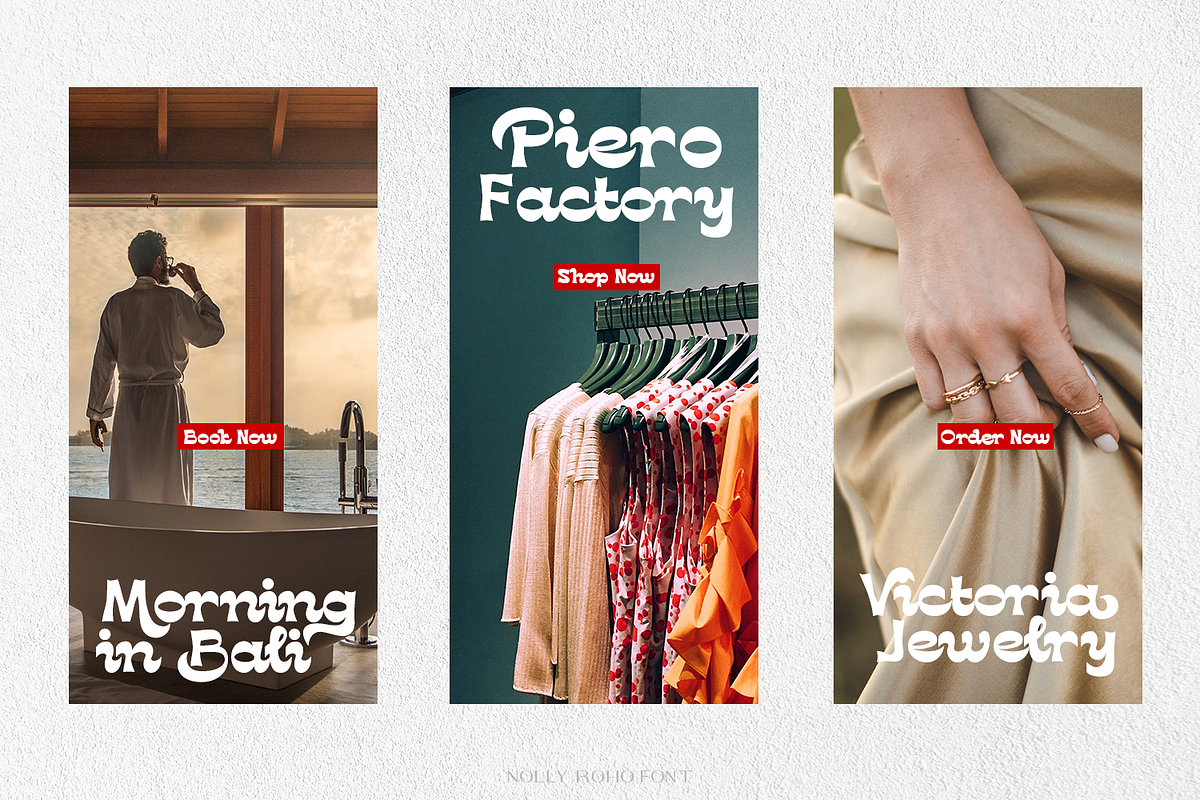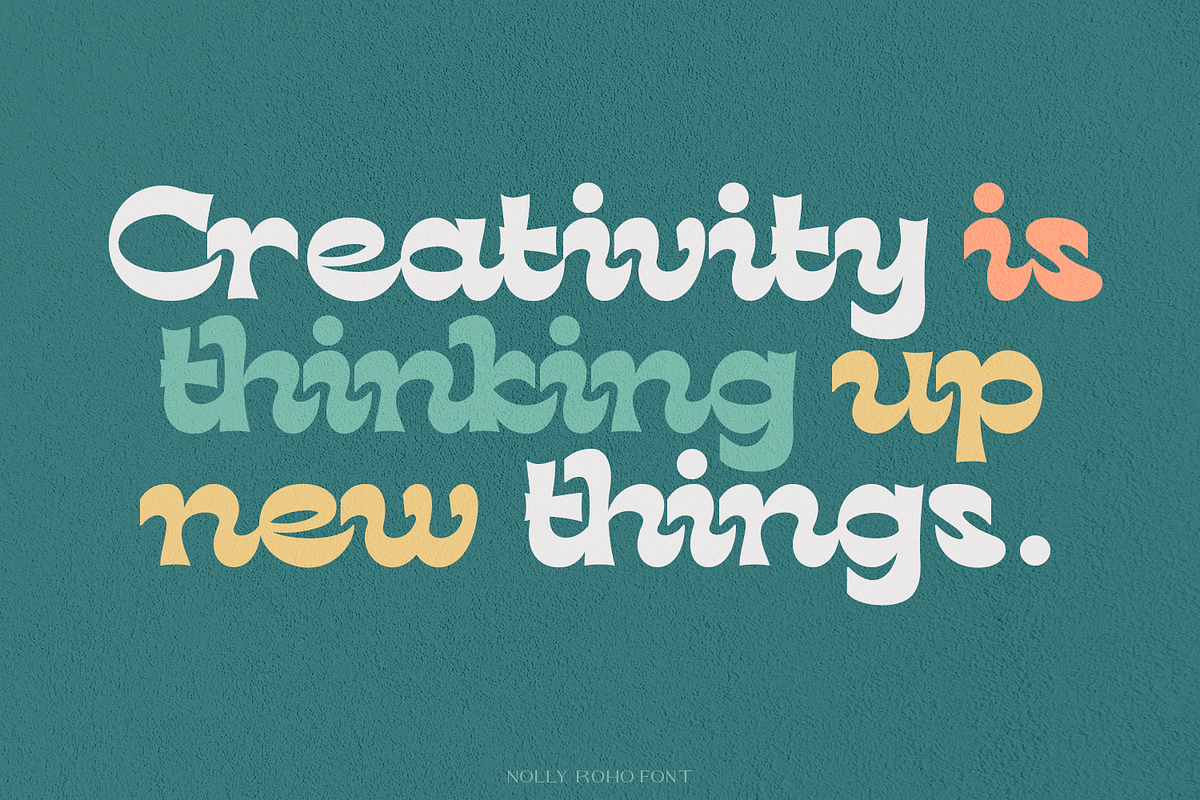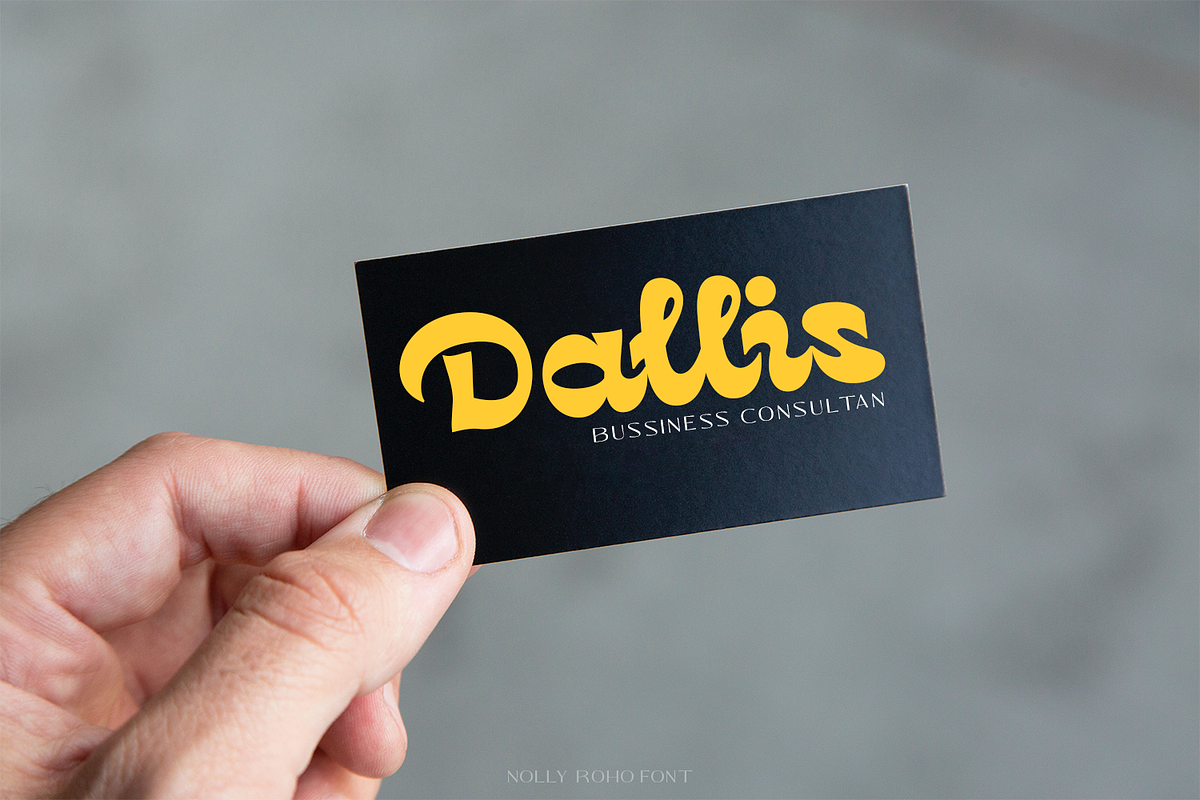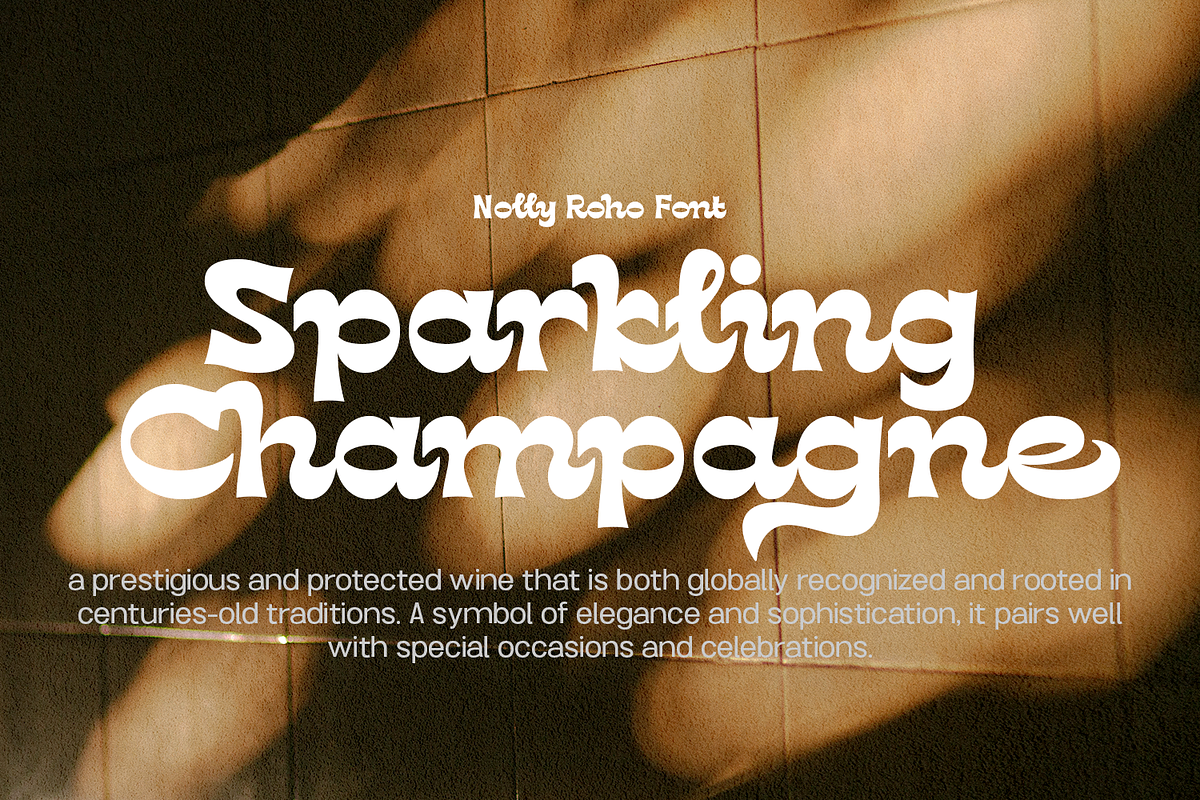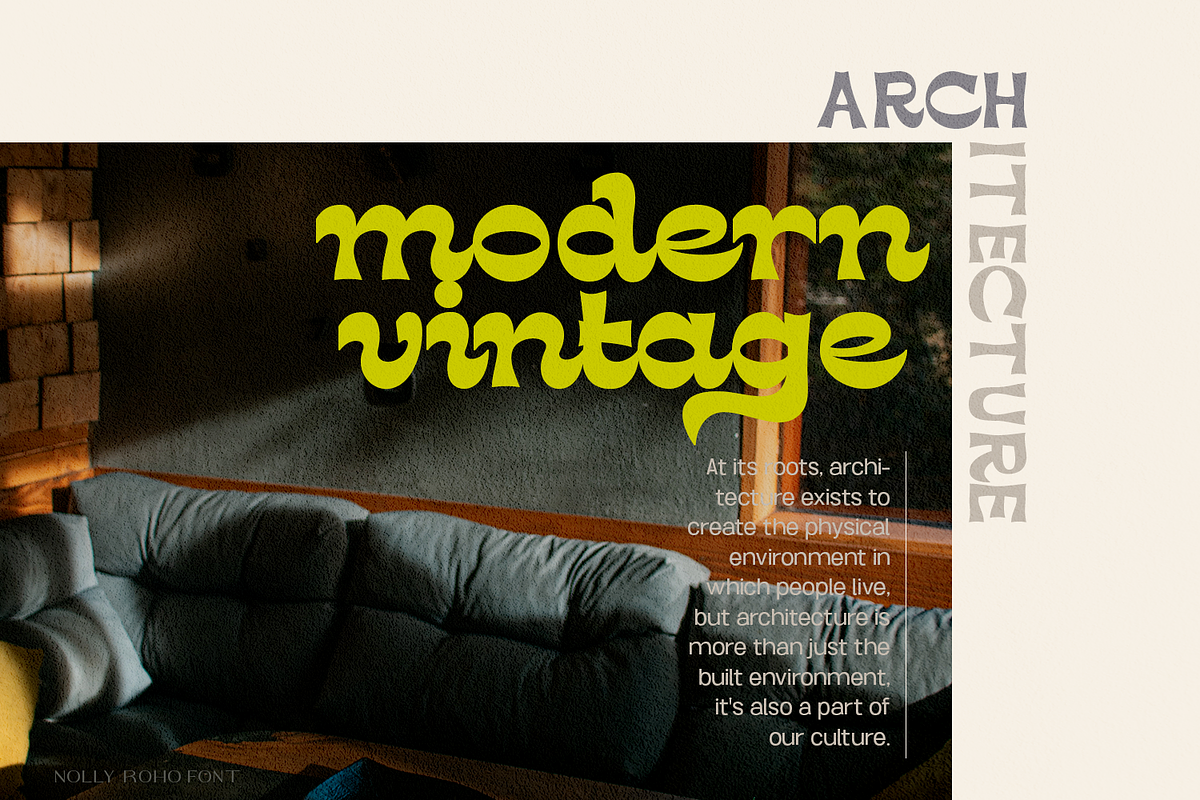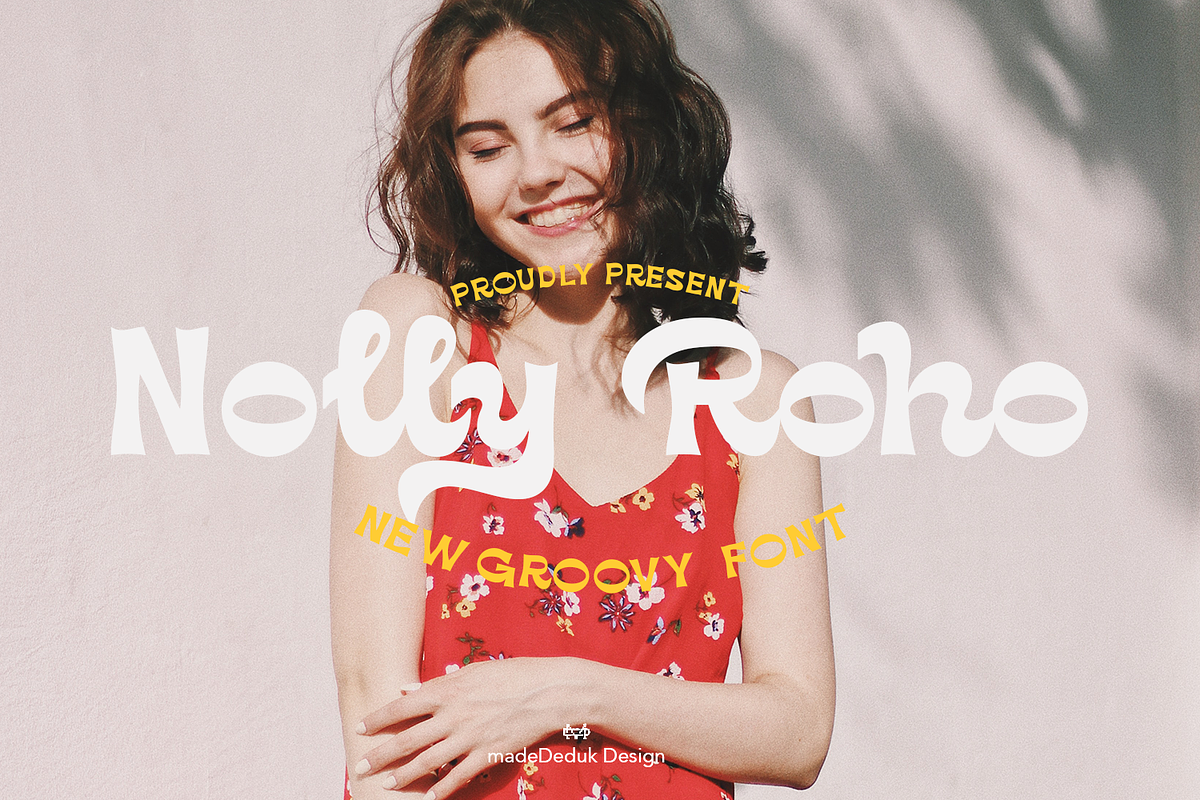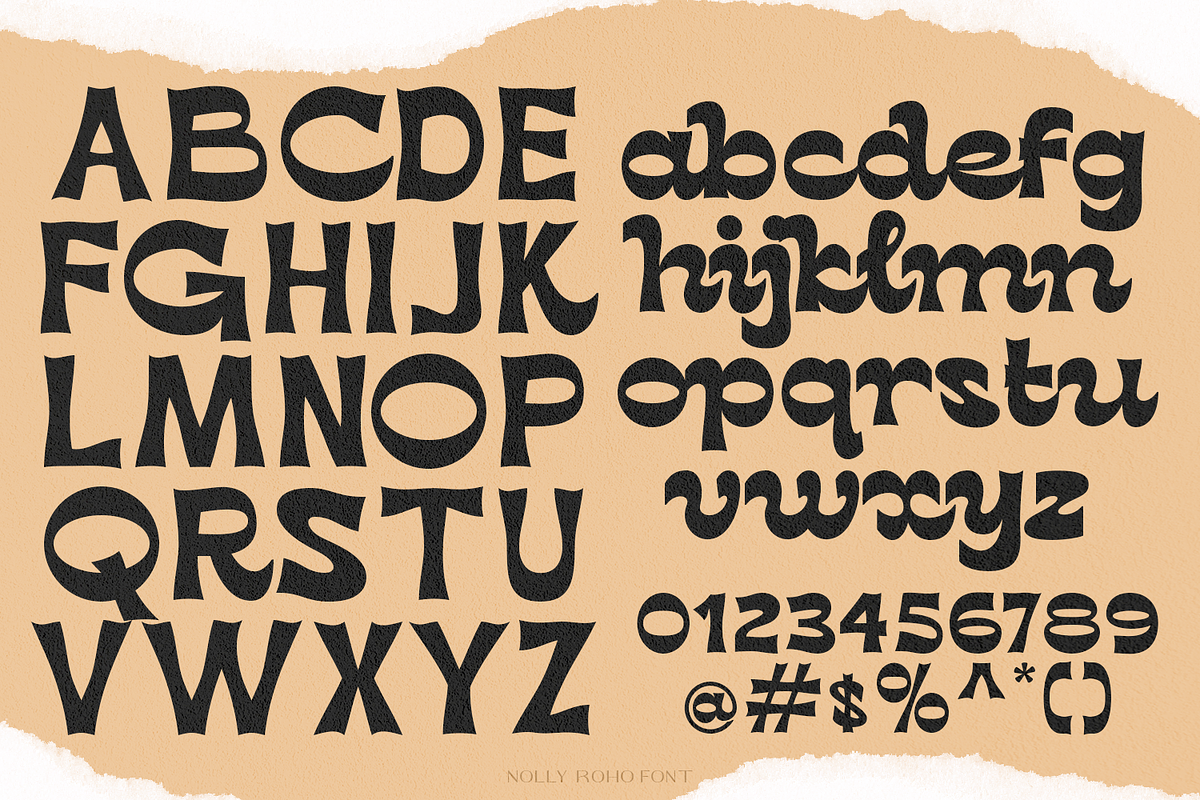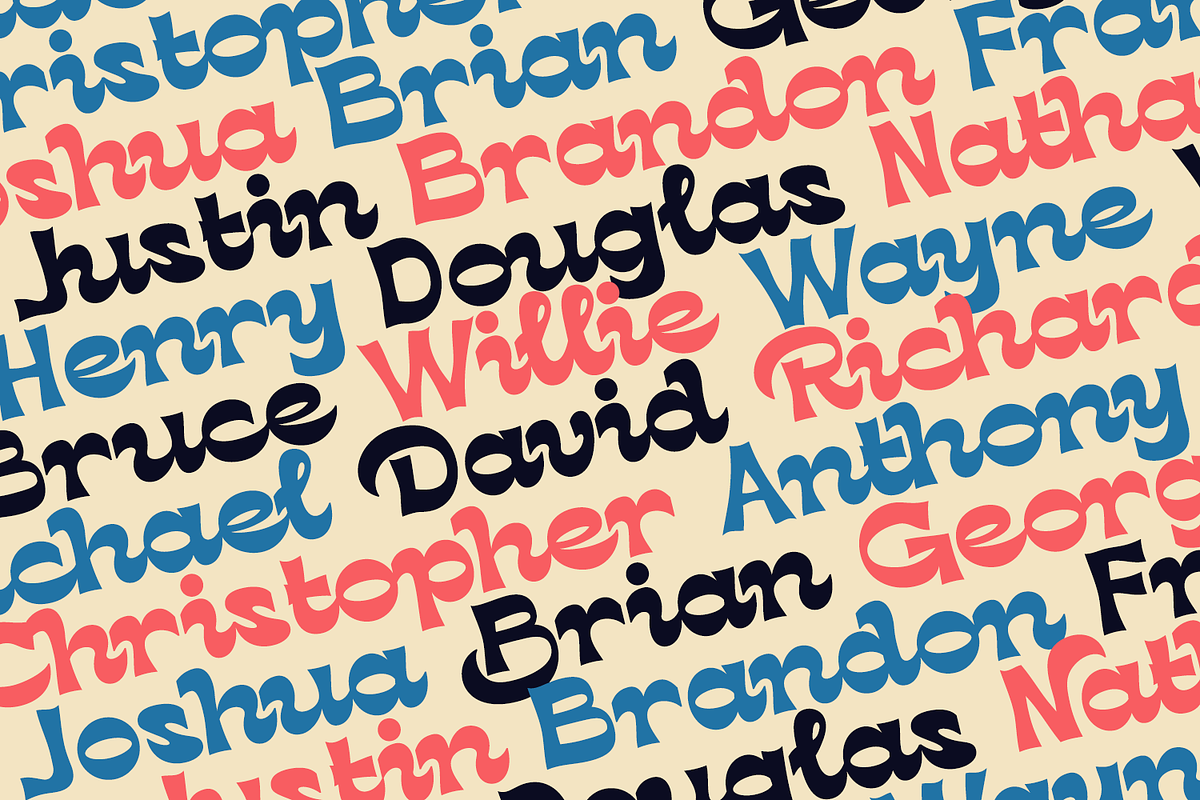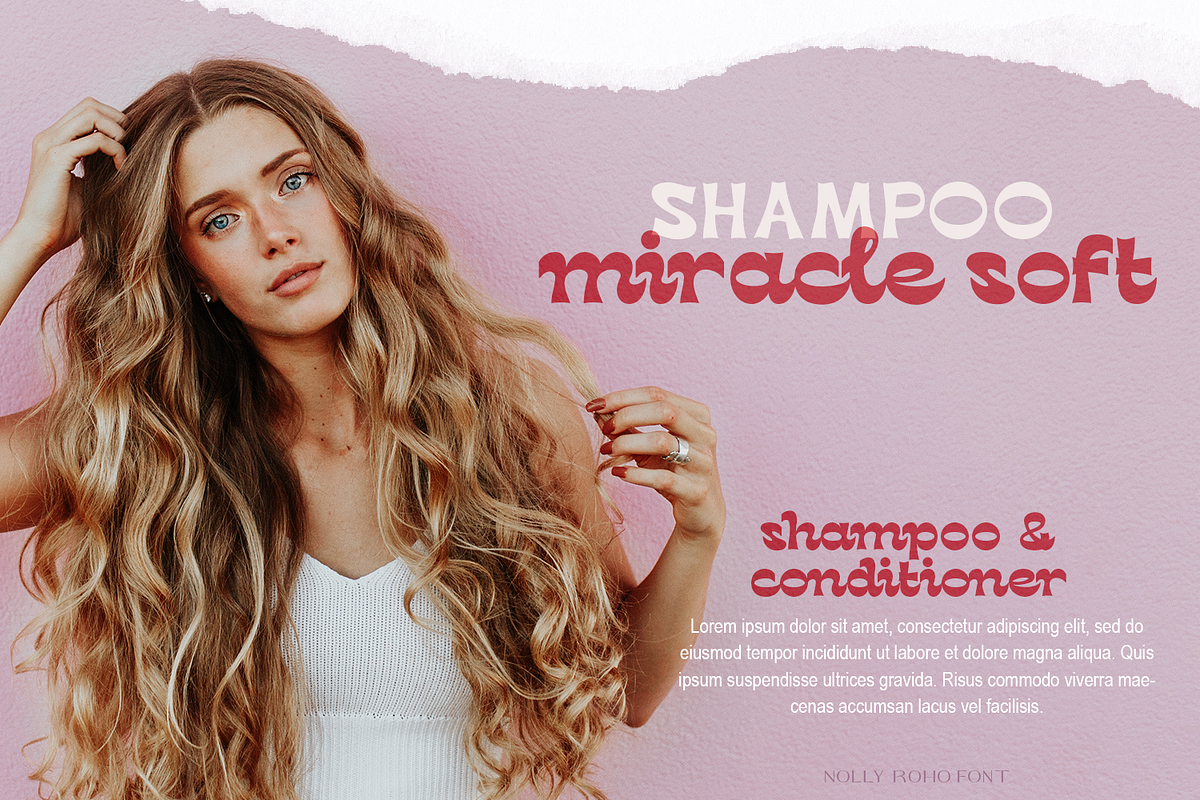
Nolly Roho Font
Nolly Roho is a groovy font come with 80's script style. Groovy and refined you can explore and combine creating rhythm for comfortable reading. This font perfect for any projects, such logotype, stickers, greeting / wedding cards, packaging design, headlines, brand identity, t-shirt, posters, magazines, books, Instagram, websites, and many more.